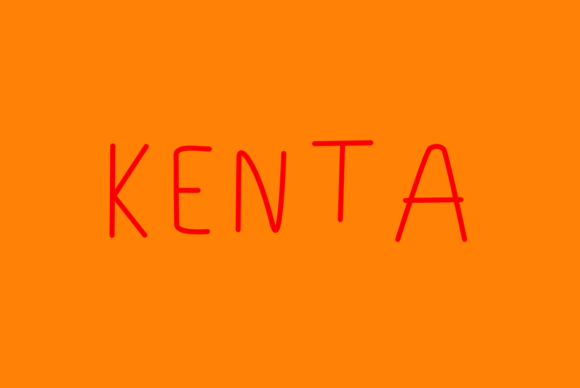
Kenta Font: A Thin, Simple, and Readable Handwritten Font
Kenta font is a beautiful, thin, simple, and readable handwritten font that is perfect for adding a touch of whimsy and quirkiness to your designs. This font is designed to brighten up each of your projects, and with its confident and elegant look, you will love the results. In this article, we will explore the features and benefits of Kenta font, and how you can use it to take your designs to the next level.
What is Kenta Font?
Kenta font is a type of handwritten font that is characterized by its thin and simple lines. It has a whimsical and quirky feel to it, making it perfect for designs that require a touch of personality. The font is highly readable, even at small sizes, making it ideal for use in a variety of applications, from digital media to print materials.
Features of Kenta Font
- Thin and Simple Lines: Kenta font features thin and simple lines that give it a clean and elegant look.
- Whimsical and Quirky: The font has a whimsical and quirky feel to it, making it perfect for designs that require a touch of personality.
- Highly Readable: Kenta font is highly readable, even at small sizes, making it ideal for use in a variety of applications.
- Handwritten Style: The font has a handwritten style that gives it a personal and unique touch.
Benefits of Using Kenta Font
Kenta font offers a range of benefits for designers and businesses looking to add a touch of personality to their designs. Some of the benefits of using Kenta font include:
- Unique and Creative: Kenta font is a unique and creative font that can help you stand out from the crowd.
- Improves Readability: The font’s high readability makes it ideal for use in digital media, print materials, and other applications where readability is key.
- Versatile: Kenta font is versatile and can be used in a variety of applications, from headings and titles to body text.
- Elegant and Sophisticated: The font’s thin and simple lines give it an elegant and sophisticated look that is perfect for designs that require a touch of class.
How to Use Kenta Font
Kenta font is easy to use and can be incorporated into your designs in a variety of ways. Here are some tips for using Kenta font:
- Use it as a Heading Font: Kenta font is perfect for use as a heading font, where its unique and creative style can really make your design stand out.
- Pair it with Other Fonts: Kenta font can be paired with other fonts to create a unique and interesting look.
- Use it for Body Text: The font’s high readability makes it suitable for use in body text, especially in digital media and print materials.
- Experiment with Different Sizes: Kenta font looks great at a variety of sizes, so don’t be afraid to experiment and find the size that works best for your design.
Kenta Font in Digital Media
Kenta font is perfect for use in digital media, where its unique and creative style can really make your design stand out. Here are some ways you can use Kenta font in digital media:
- Web Design: Kenta font can be used in web design to add a touch of personality to your website.
- Social Media: The font can be used in social media graphics to add a touch of whimsy and quirkiness.
- Email Marketing: Kenta font can be used in email marketing campaigns to add a touch of personality to your emails.
- Digital Advertising: The font can be used in digital advertising to grab the attention of your target audience.
Kenta Font in Print Media
Kenta font is also perfect for use in print media, where its elegant and sophisticated look can really make your design stand out. Here are some ways you can use Kenta font in print media:
- Brochures: Kenta font can be used in brochures to add a touch of personality to your marketing materials.
- Posters: The font can be used in posters to grab the attention of your target audience.
- Business Cards: Kenta font can be used in business cards to add a touch of elegance and sophistication.
- Magazines: The font can be used in magazines to add a touch of personality to your editorial content.
Kenta font is a beautiful, thin, simple, and readable handwritten font that is perfect for adding a touch of whimsy and quirkiness to your designs. With its unique and creative style, high readability, and elegant and sophisticated look, Kenta font is ideal for use in a variety of applications, from digital media to print materials. Whether you’re a designer, business owner, or marketer, Kenta font is a great choice for anyone looking to add a touch of personality to their designs.
- What is Kenta font? Kenta font is a thin, simple, and readable handwritten font.
- What are the features of Kenta font? Kenta font features thin and simple lines, a whimsical and quirky feel, and high readability.
- What are the benefits of using Kenta font? The benefits of using Kenta font include its unique and creative style, high readability, versatility, and elegant and sophisticated look.
- How can I use Kenta font? Kenta font can be used in a variety of applications, including headings, titles, body text, and more.